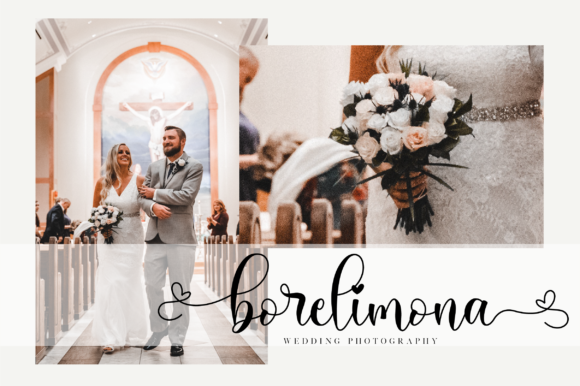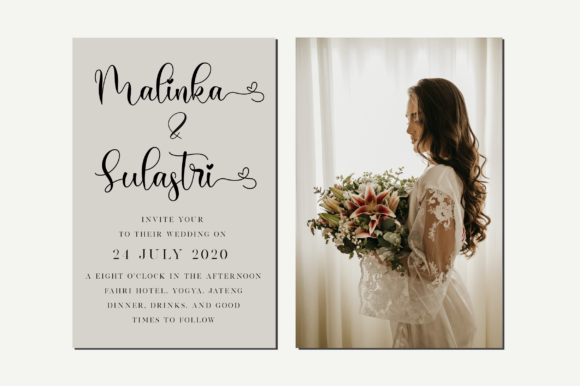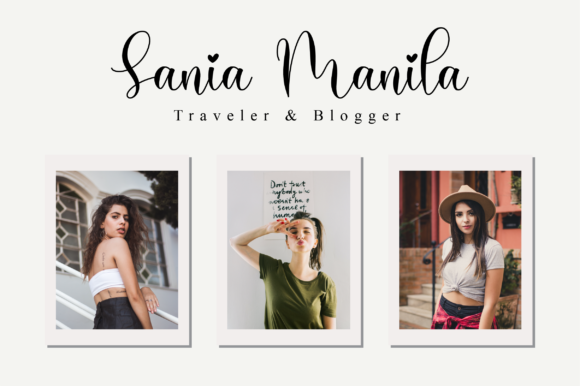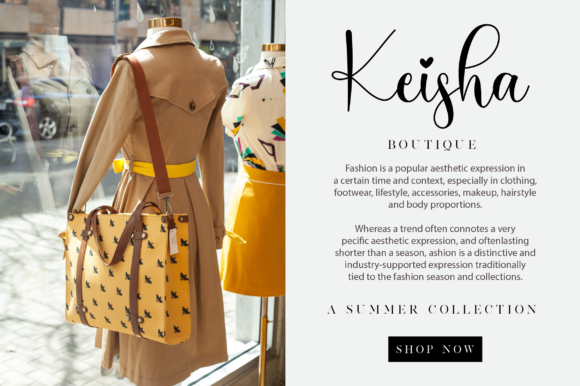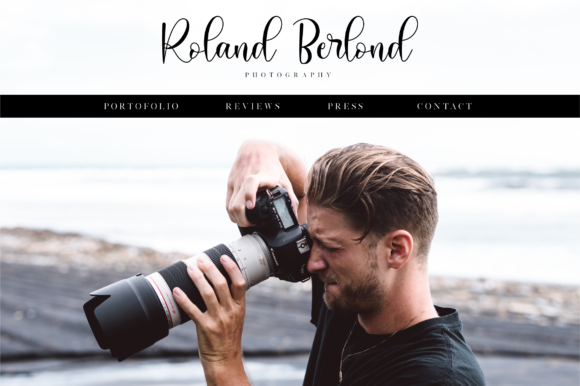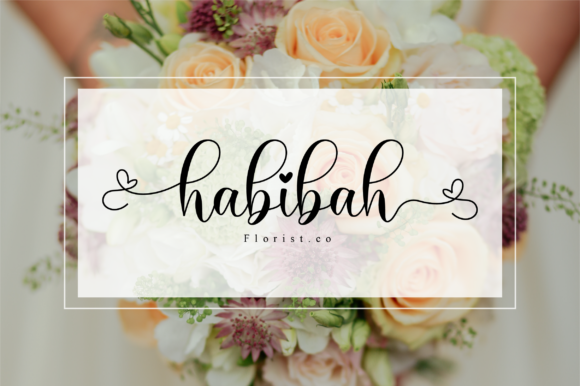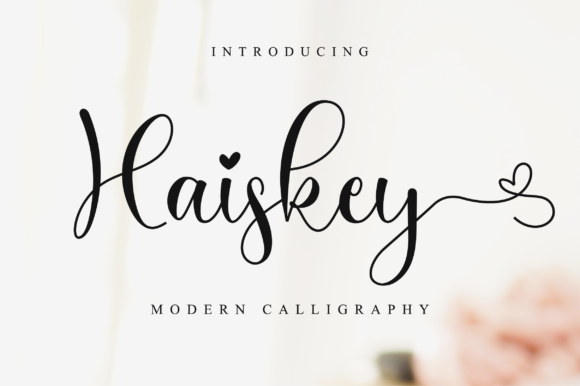
Haiskey Font: The Sweet and Soft Hand-Lettered Font for Your Creative Projects
Are you looking for a font that can add a touch of sweetness and softness to your creative projects? Look no further than the Haiskey Font. This beautiful, hand-lettered handwritten font is perfect for designers and crafters who want to create stunning wedding invitations, stationary art, social media posts, and greeting cards that stand out from the crowd.
What is Haiskey Font?
Haiskey Font is a unique and authentic hand-lettered font that is designed to give your projects a personal and human touch. Its soft and sweet curves make it perfect for creating beautiful and elegant designs that are sure to impress. Whether you’re a designer, crafter, or DIY enthusiast, Haiskey Font is a great addition to your font collection.
Features of Haiskey Font
So, what makes Haiskey Font so special? Here are some of its key features:
• Sweet and Soft Curves: Haiskey Font has a beautiful, flowing script that is perfect for creating elegant and sophisticated designs.
• Hand-Lettered: This font is carefully hand-lettered, giving it a unique and authentic feel that is hard to replicate with digital fonts.
• Perfect for Wedding Invitations: Haiskey Font is a popular choice for wedding invitations, and for good reason. Its elegant and sophisticated design makes it perfect for formal and informal weddings alike.
• Great for Stationary Art: Whether you’re creating greeting cards, postcards, or other types of stationary, Haiskey Font is a great choice.
• Eye-Catching Social Media Posts: Use Haiskey Font to create stunning social media posts that are sure to grab attention.
Uses of Haiskey Font
Haiskey Font is a versatile font that can be used for a wide range of creative projects. Here are some ideas to get you started:
• Wedding Invitations: Create beautiful and elegant wedding invitations that set the tone for the big day.
• Stationary Art: Use Haiskey Font to create stunning greeting cards, postcards, and other types of stationary.
• Social Media Posts: Create eye-catching social media posts that are sure to grab attention.
• Greeting Cards: Use Haiskey Font to create cute and personalized greeting cards for special occasions.
• DIY Projects: Add a personal touch to your DIY projects, such as scrapbooking, journaling, and crafting.
Why Choose Haiskey Font?
So, why should you choose Haiskey Font for your creative projects? Here are just a few reasons:
• Unique and Authentic: Haiskey Font is a unique and authentic hand-lettered font that will give your projects a personal touch.
• Elegant and Sophisticated: This font is perfect for creating elegant and sophisticated designs that are sure to impress.
In conclusion, Haiskey Font is a beautiful and versatile hand-lettered font that is perfect for designers and crafters who want to create stunning creative projects. Its sweet and soft curves make it perfect for creating elegant and sophisticated designs that are sure to impress. Whether you’re creating wedding invitations, stationary art, social media posts, or greeting cards, Haiskey Font is a great choice. So why wait? Download Haiskey Font today and start creating your own beautiful designs.
• Haiskey Font is a sweet and soft hand-lettered handwritten font.
• It’s perfect for creating elegant and sophisticated designs.
• Haiskey Font is great for wedding invitations, stationary art, social media posts, and greeting cards.